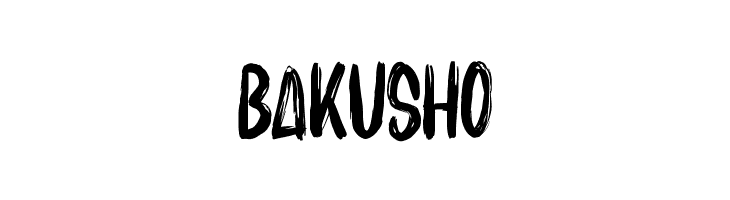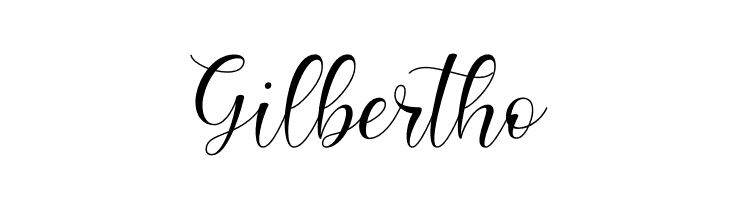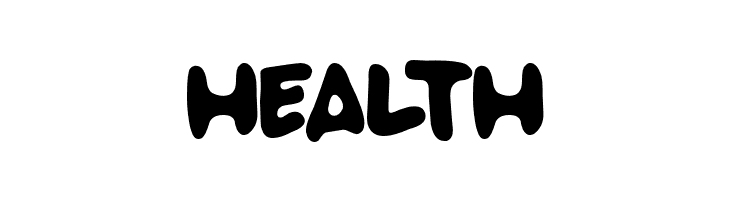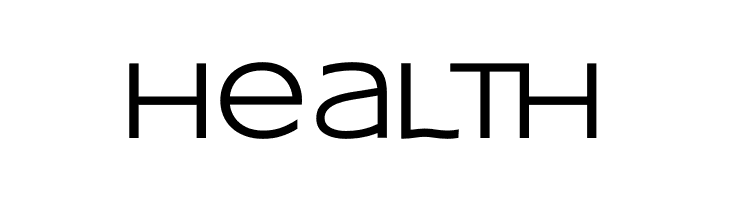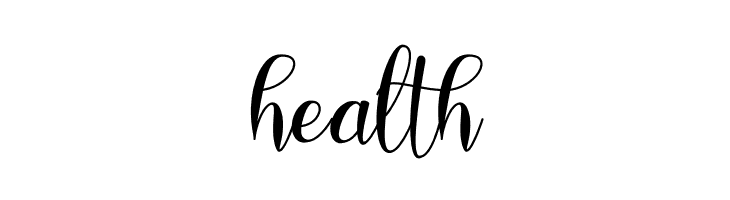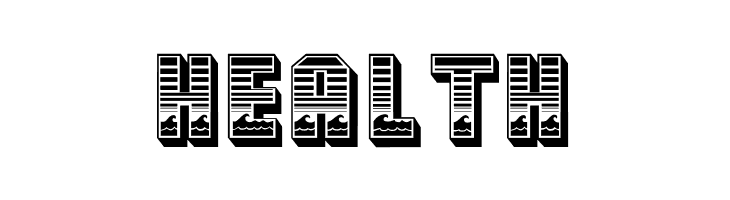
A bold, playful font with rounded strokes and a cartoonish style.
A modern, geometric font with clean lines and versatile characters.
A modern sans-serif font with smooth, rounded edges and uniform stroke width.
A bold, decorative font with ocean-themed wave patterns and a 3D effect.
Illustrative dingbat font with household-themed pictograms.
An elegant, flowing script font with smooth, cursive lines and graceful curves.
A bold, brush-style font with dynamic, expressive strokes.
A lively and expressive script font with fluid, cursive strokes.
A modern, geometric sans-serif font with clean lines and a structured appearance.
A bold, artistic font with a hand-drawn, decorative style.